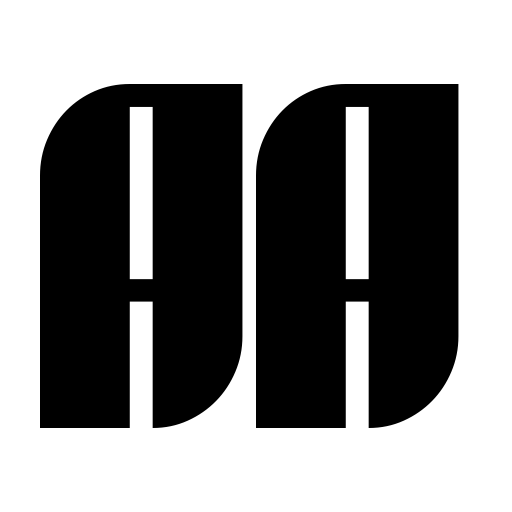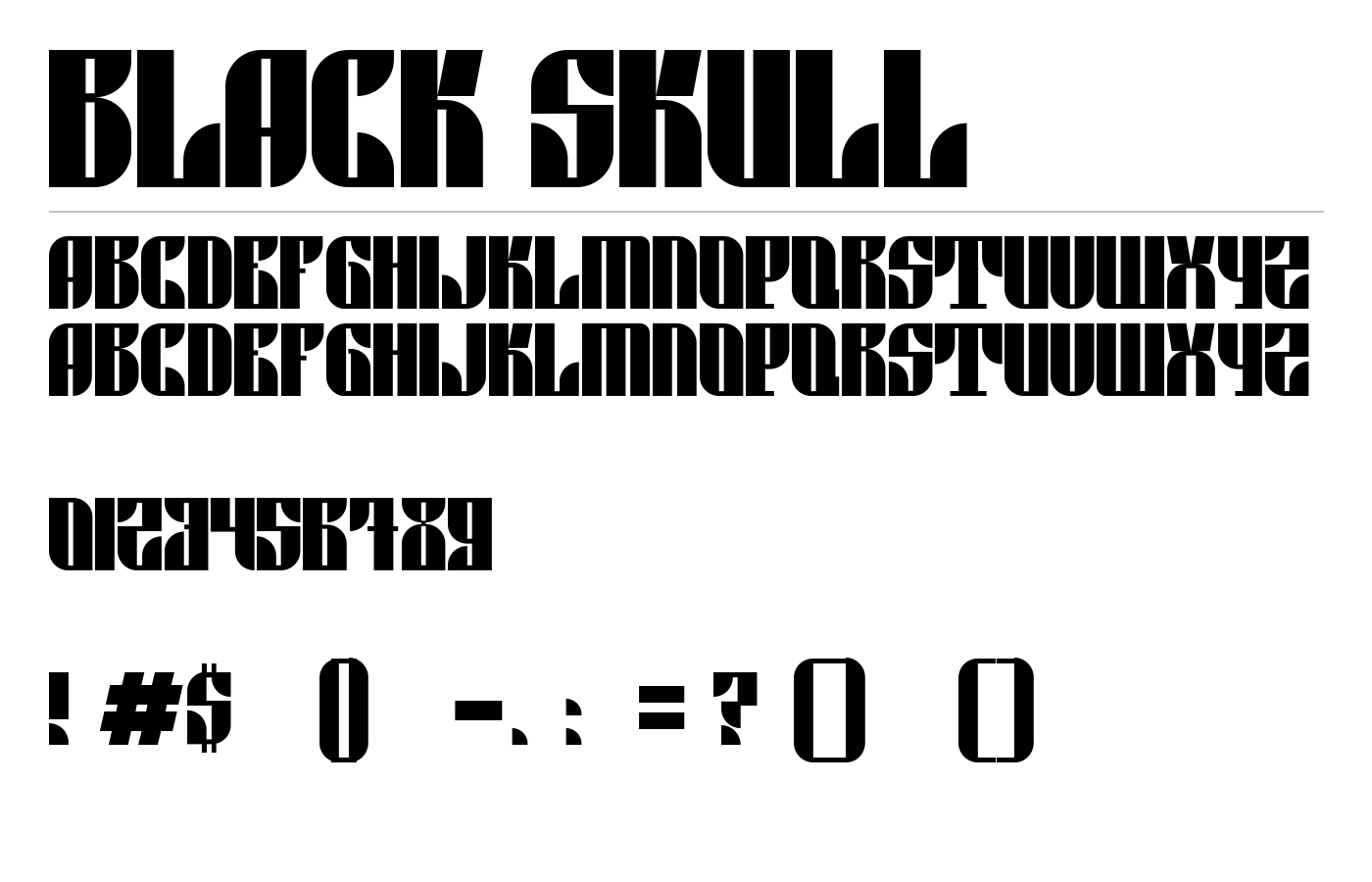
Black Skull is a striking, bold display font with a condensed, heavy weight and strong geometric shapes that create a dramatic visual impact. Its sharp, blocky letterforms with distinct cutouts give it a modern yet edgy and slightly gothic feel, perfect for eye-catching headlines, logos, and branding that seeks to convey power and intensity. This font works well in designs that demand attention and a rebellious, urban vibe.
Black skull Font
About Black skull Font
| Designer | ThÈo d'Aigremont |